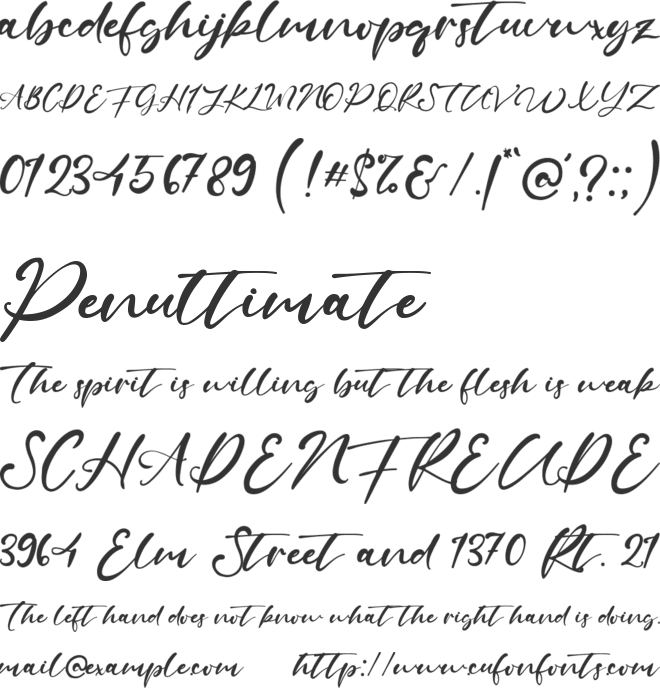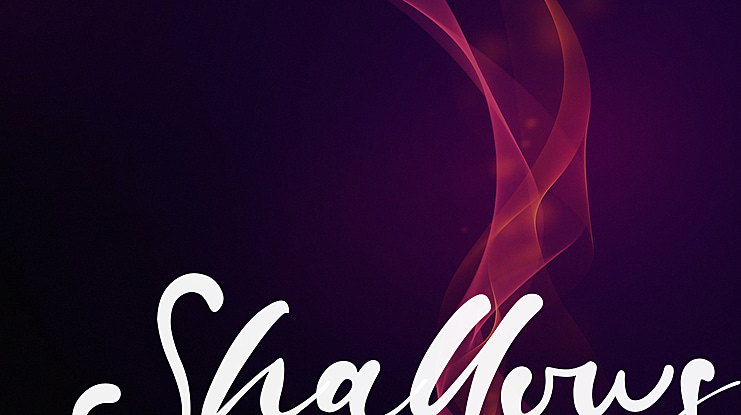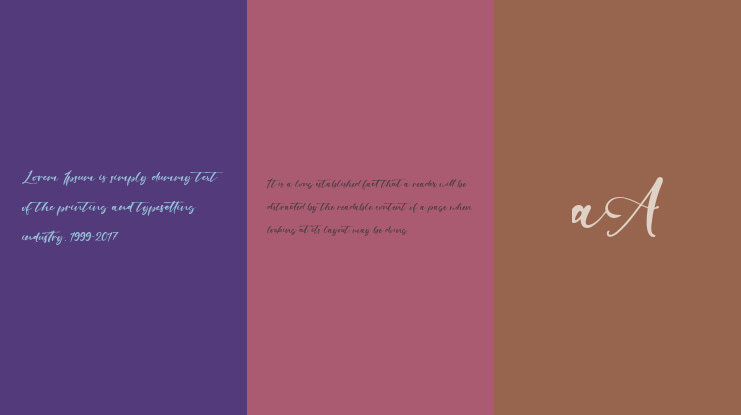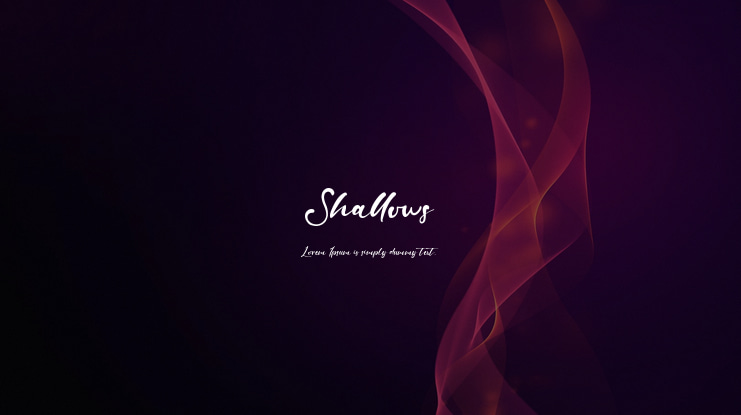
Shallows Font Family
The lowercase letter has 5 different versions that automatically cycles as you type.
Great for any designs need a dynamic, natural and organic handwritten style font.